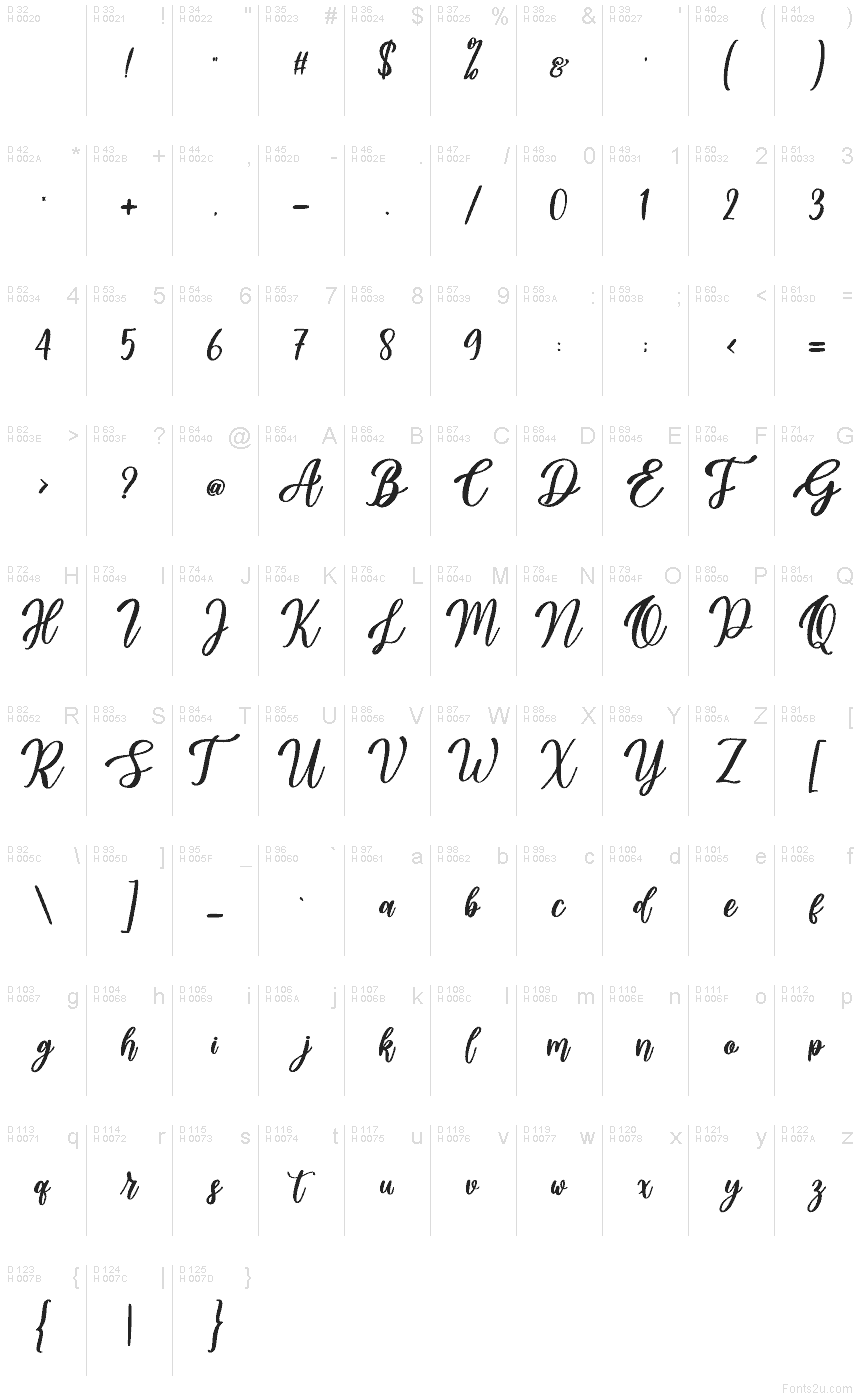
AgittaAfilia
Agitta Afilia font from Skiiller Studio is an elegant modern calligraphy font with a flowing appearance. This sophisticated typeface takes inspiration from a fluid pen writing style and incorporates stunning decorative elements for an extra touch of class. Expressive in nature, AgittaAfilia can enhance every project that requires a standout touch with its beautiful and artistic features.
Use it to design cards, invitations, labels, packaging boxes, book titles and covers. Use it for quotes, dedications or love notes, letterheads or trademarks. AgittaAfilia is also apt for logos since it leaves an immediate impression and presents the tone of the brand or identity projects.